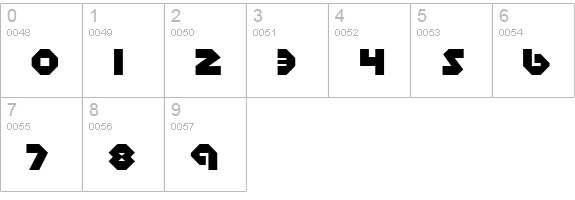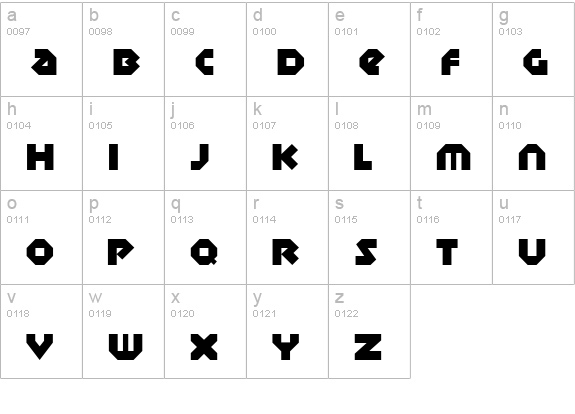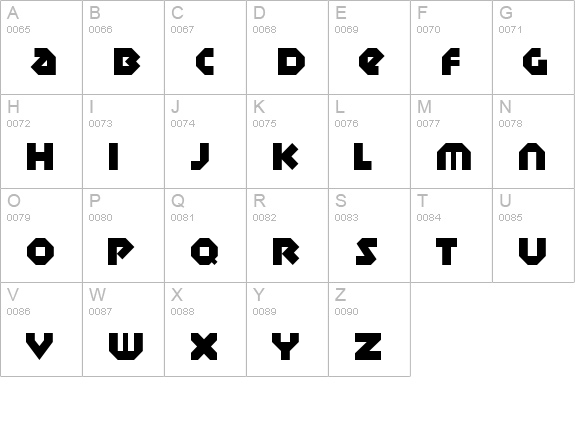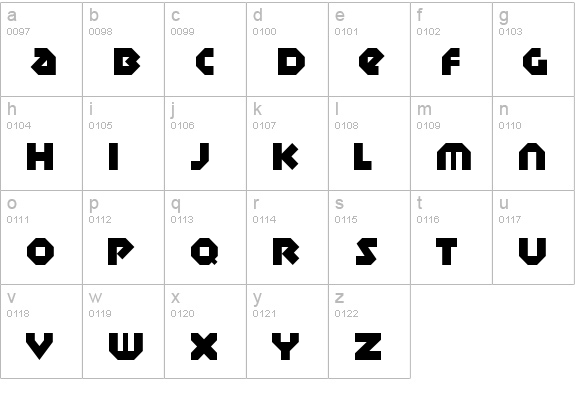
Sudbury Basin Font Details
Introducing Sudbury Basin font, a modern and versatile typeface that combines elegance with a touch of boldness. Inspired by the unique geological formations of the Sudbury Basin, this font features sleek lines and a contemporary aesthetic that is perfect for a wide range of design projects. Sudbury Basin font is ideal for branding, logo design, packaging, posters, and more. Its clean and sophisticated look makes it stand out while maintaining readability and professionalism. Whether you're looking to create a sleek and stylish design or add a touch of modernity to your project, Sudbury Basin font has got you covered. Best of all, Sudbury Basin font is available for free download at FontsMarket.com. So, why wait? Elevate your designs with this stunning typeface today and make a lasting impression.